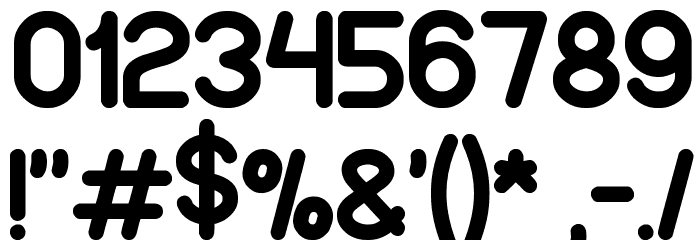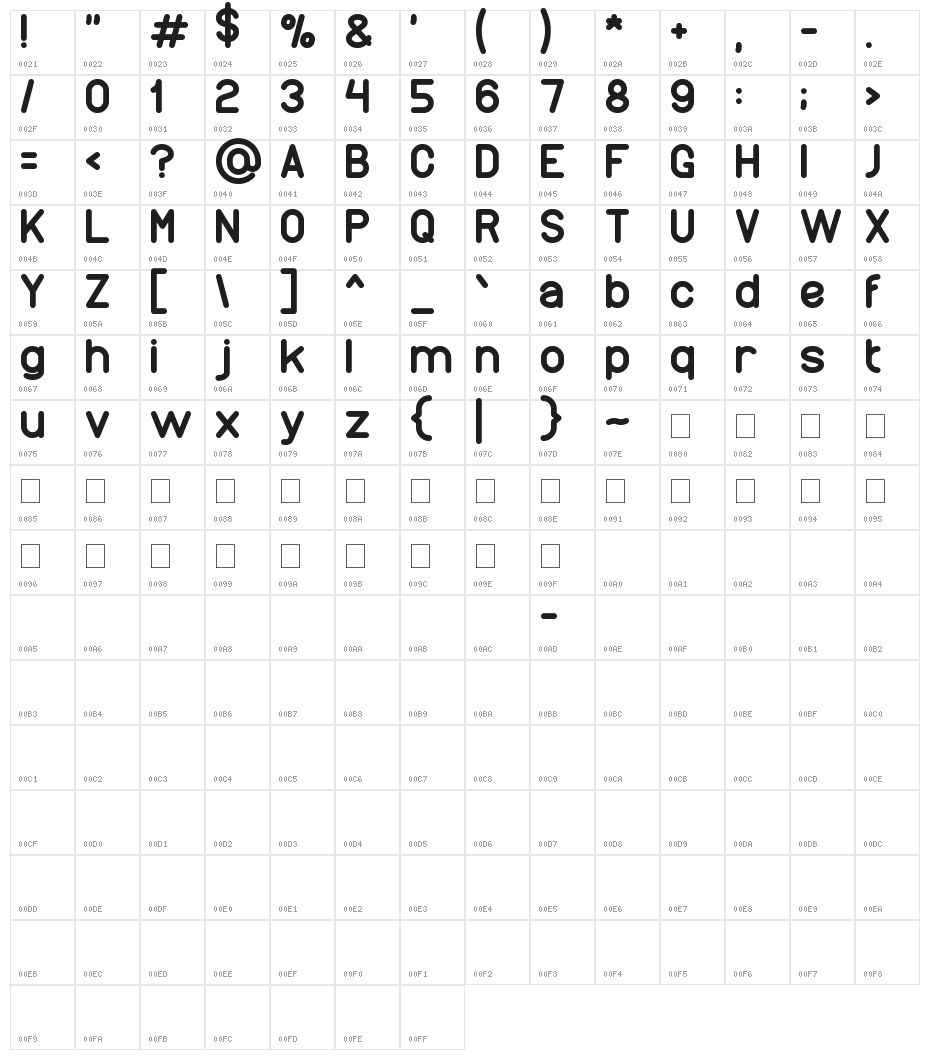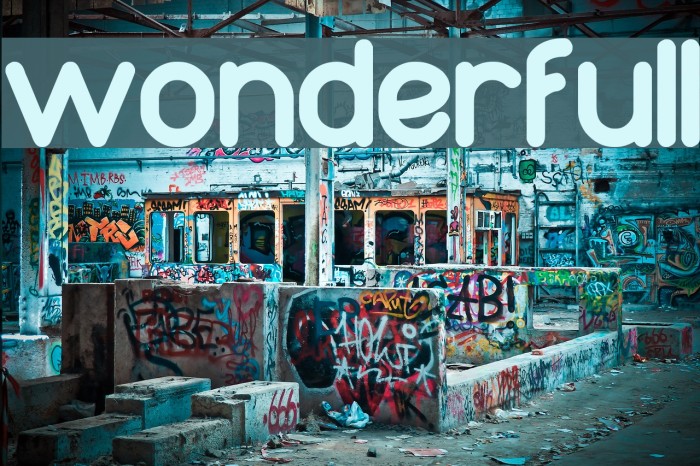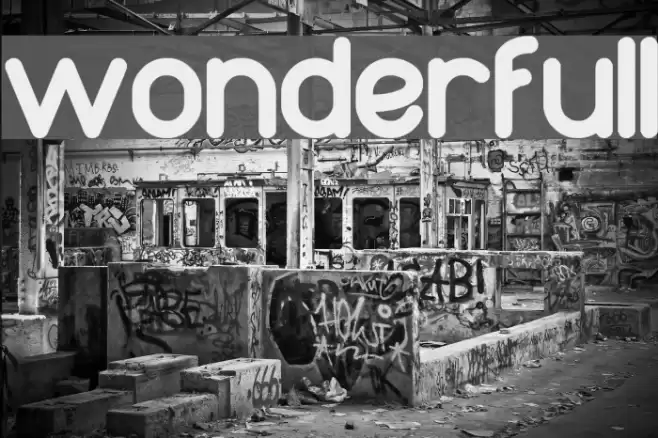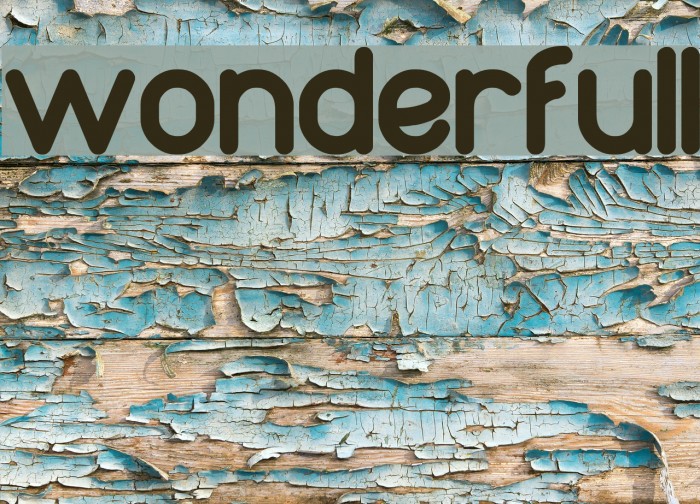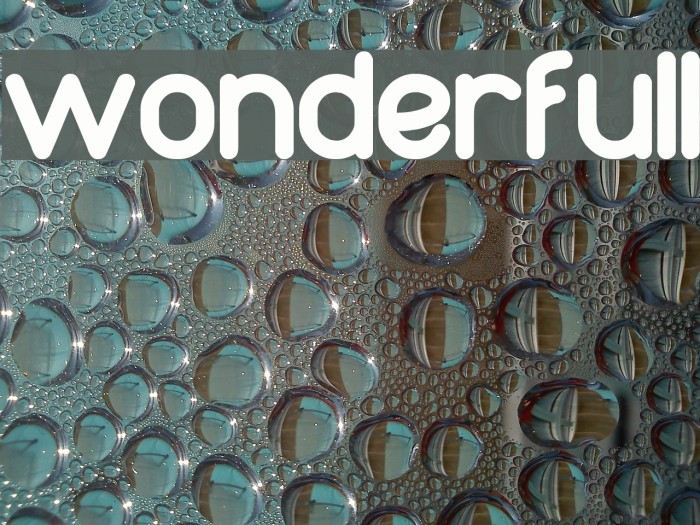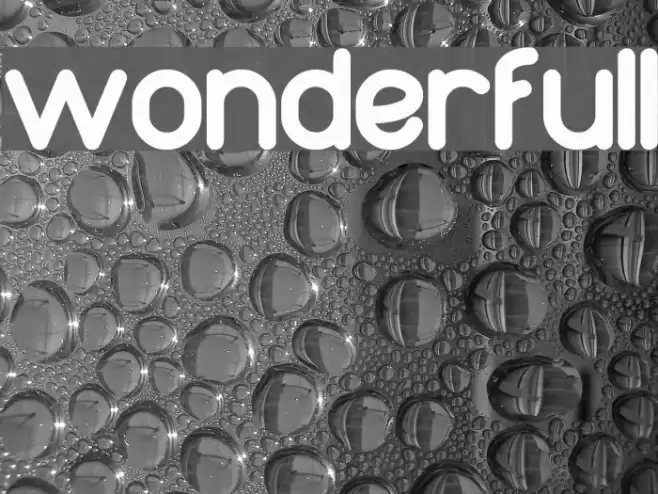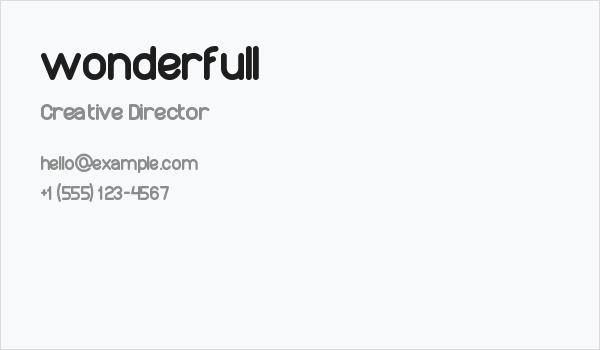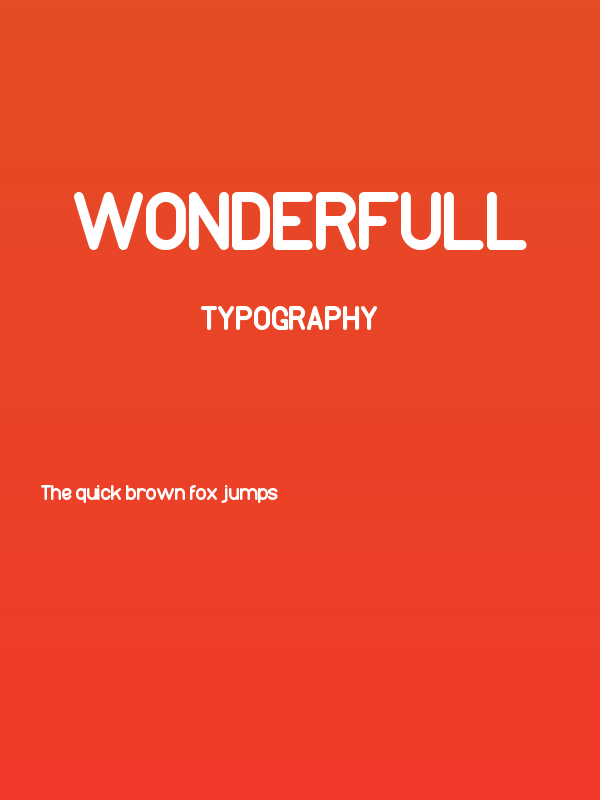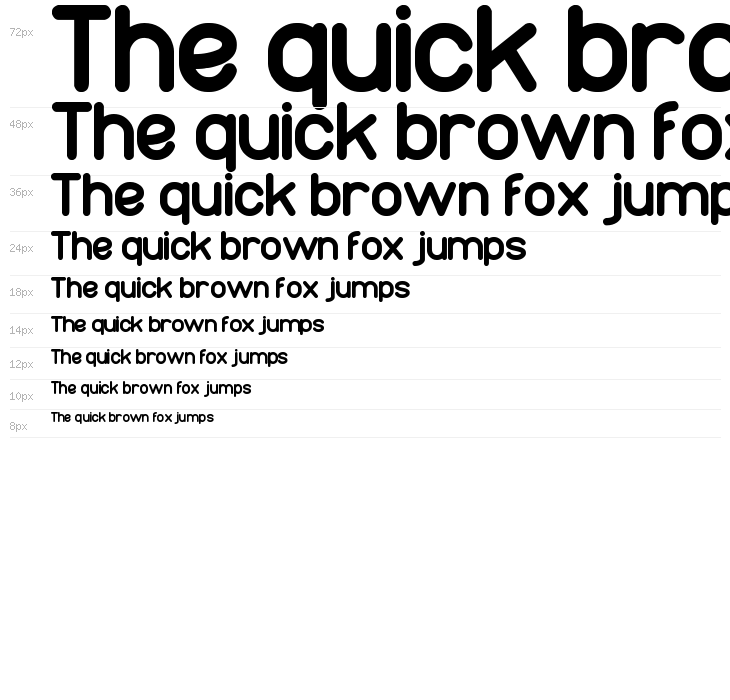
wonderfull Font
wonderfull Description
This font features a bold and rounded sans-serif style, characterized by its smooth curves and uniform stroke width. The letters are evenly spaced, providing a clean and modern appearance. The uppercase and lowercase letters maintain a consistent design, enhancing readability. The numerals and special characters follow the same rounded aesthetic, making the font versatile for various applications. Its boldness ensures visibility, while the rounded edges add a friendly and approachable feel.
| Proposed Projects | Ideal for branding, advertising, headlines, and digital content where a modern and friendly look is desired. |